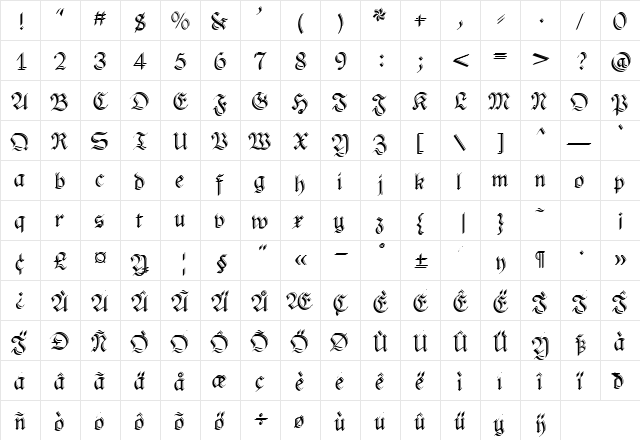
PhederFrackShadowed Regular
Design Context for PhederFrackShadowed Typeface
PhederFrackShadowed brings ornamental detail and strong personality to headlines and identities, where visual impact matters more than quiet functionality.
Font Pairing: Pair with a clean neutral sans-serif for body copy to let PhederFrackShadowed's character lead without overwhelming the composition.
Pro Tip: Treat PhederFrackShadowed as the centrepiece of your typographic hierarchy. One strong heading set in a decorative face can carry an entire layout.